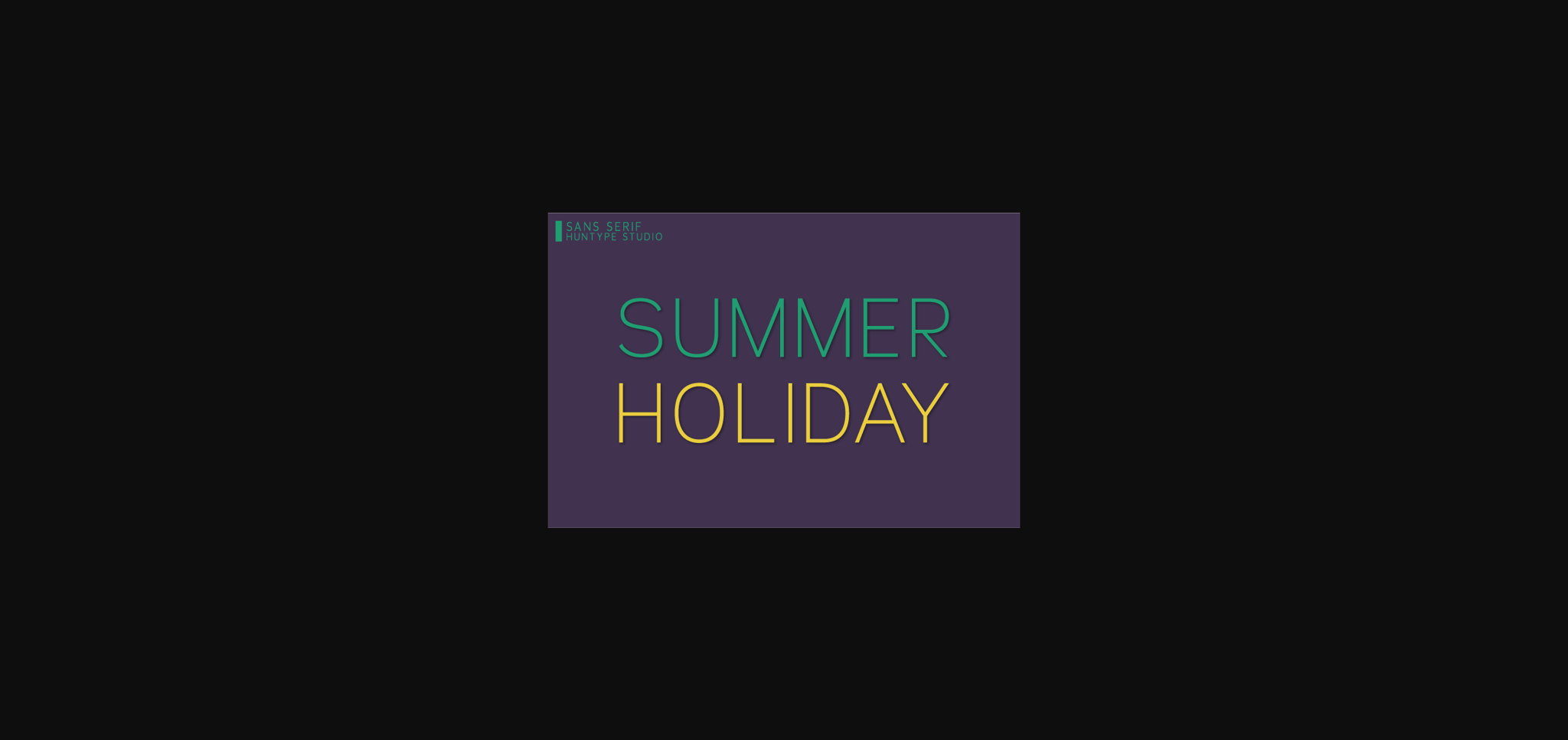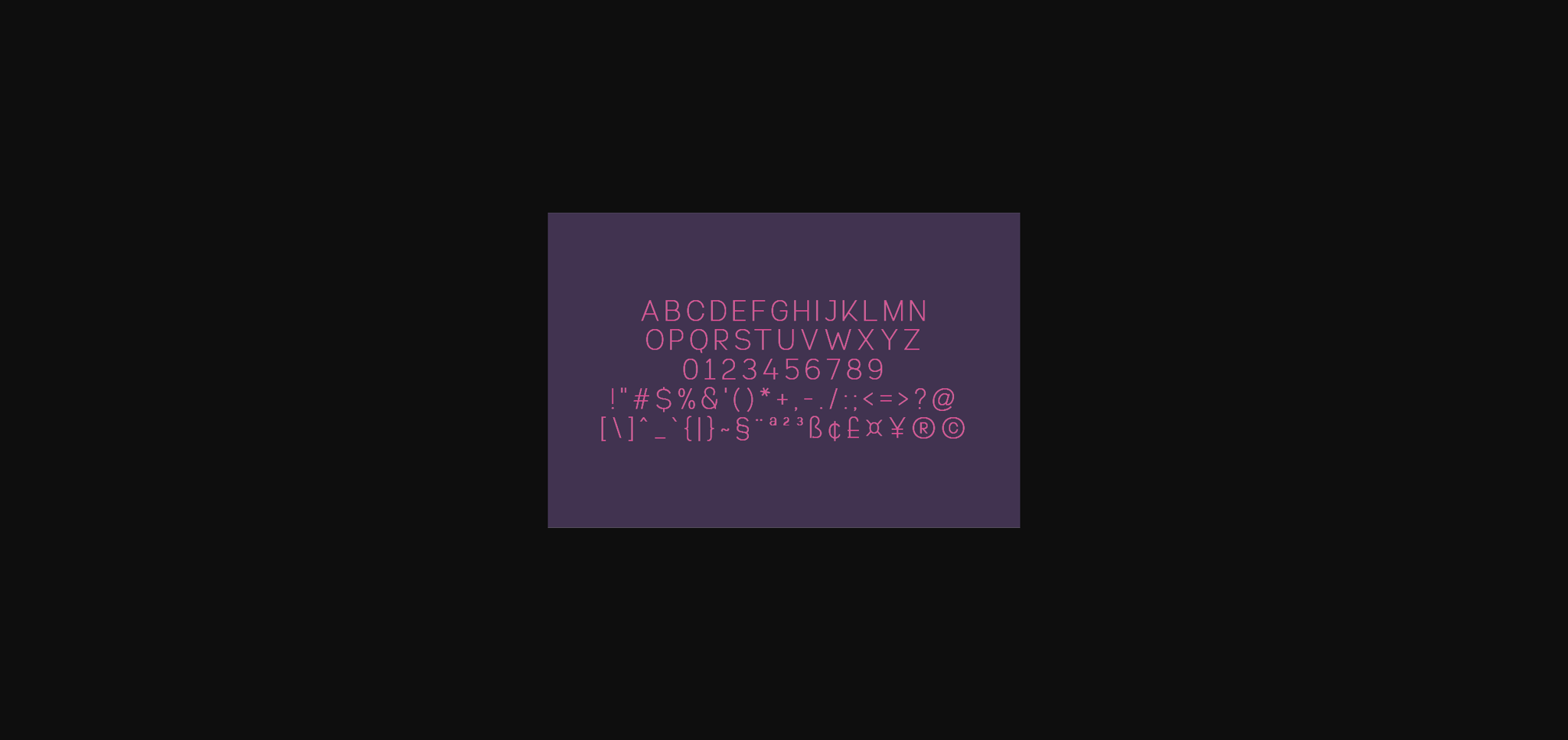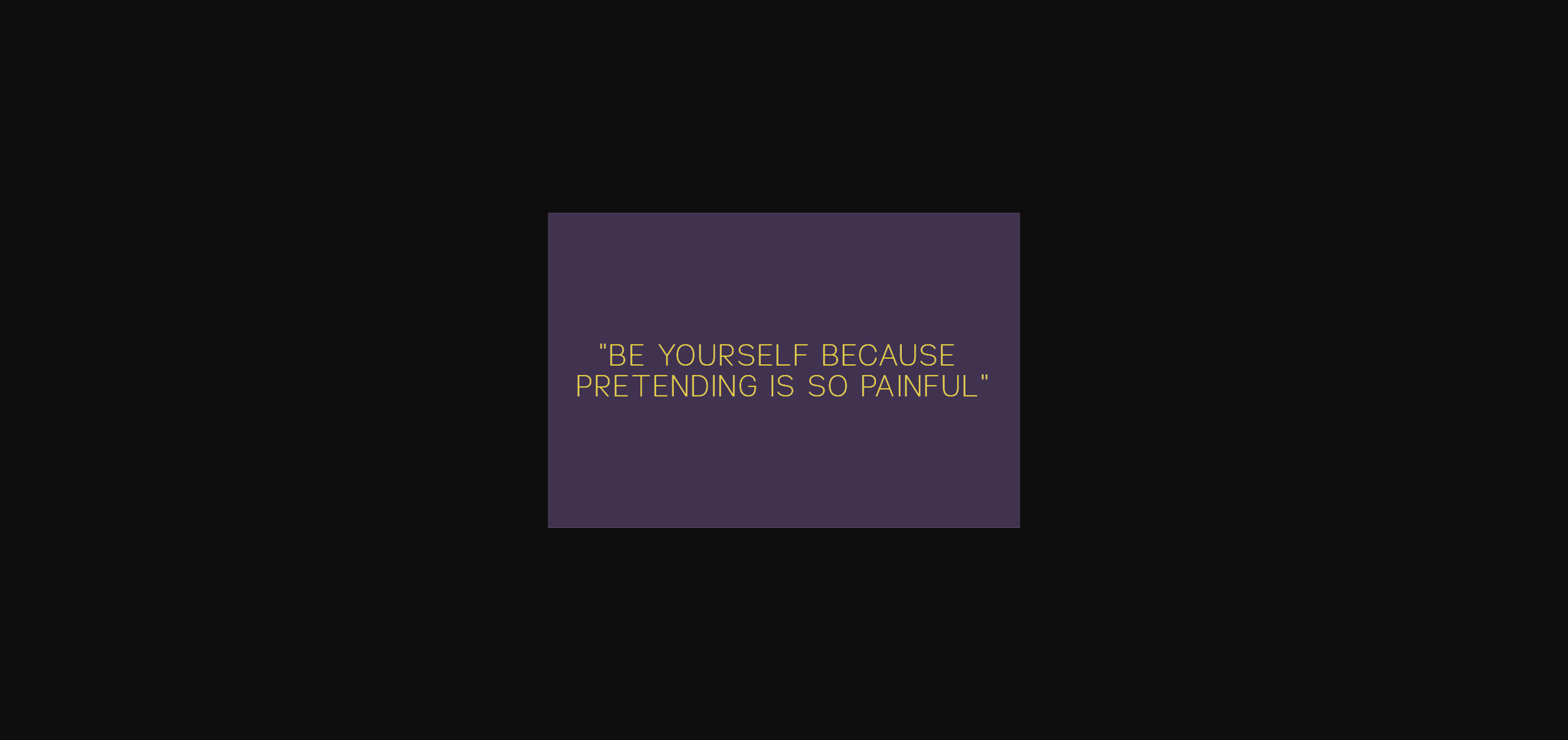
Summer Holiday Font
About Summer Holiday Font
Summer Holiday is an all-caps sans serif font that is so versatile and looks great in just about any context. With smooth and clean lines and just a touch of contrast, this font works beautifully for logos, branding, and web headings.